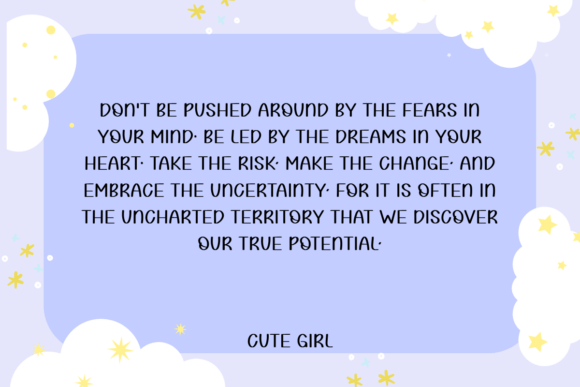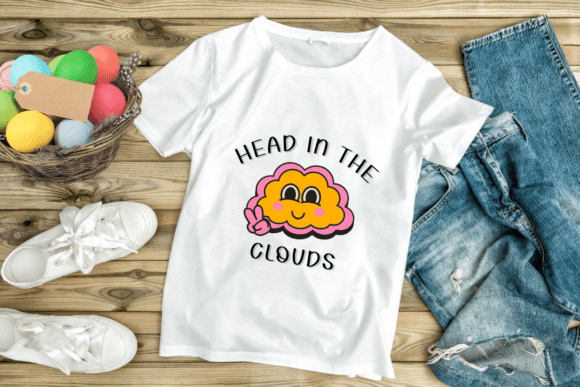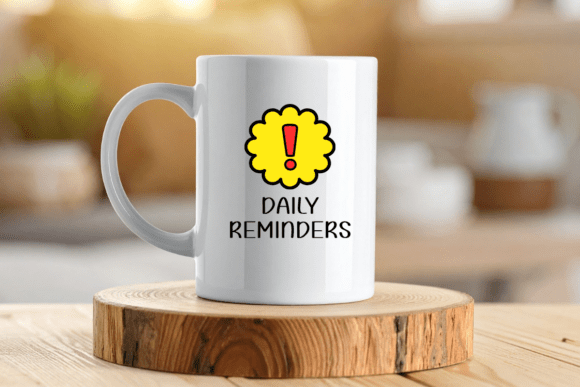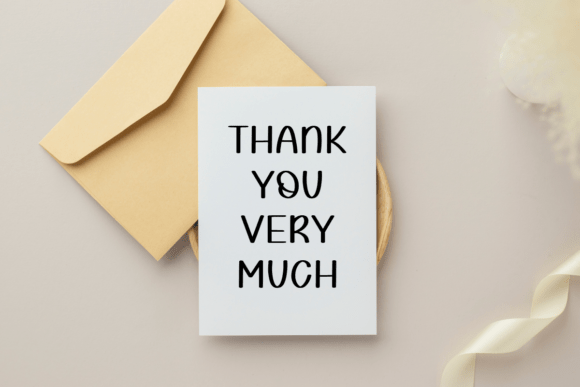
Cute Girl Font: Add a Playful Touch to Your Designs
Are you looking for a font that can add a cute and playful aesthetic to your designs? Look no further than the Cute Girl font. This cool handwriting font is perfect for crafters, designers, and DIY enthusiasts who want to create unique and eye-catching projects. With its natural vibes and adorable style, Cute Girl is sure to make your designs stand out.
What is Cute Girl Font?
Cute Girl is a handwriting font that is designed to bring a playful and cute look to your designs. It’s perfect for a variety of projects, including cricut, planner, mug, sticker, journal, invitation, greeting card, kdp, scrapbooking, crafting, tote bag, quotes, keychain, notes, and more. This font is versatile and can be used for both personal and commercial projects.
Features of Cute Girl Font
Cute Girl font has several features that make it a great addition to your creative toolbox. Some of its key features include:
- Cute Aesthetic: The font has a naturally cute and playful aesthetic that is perfect for creating adorable designs.
- Handwritten Style: The font has a handwritten style that gives it a personal and unique touch.
- Versatile: The font can be used for a variety of projects, from crafting to commercial designs.
- Easy to Read: The font is easy to read, making it perfect for quotes, notes, and other text-based designs.
Uses of Cute Girl Font
Cute Girl font can be used for a wide range of projects, including:
- Cricut: Use the font to create custom vinyl decals, iron-on designs, and paper crafts.
- Planner: Add a personal touch to your planner with cute and colorful headers and titles.
- Mug: Create custom mugs with cute quotes and designs.
- Sticker: Use the font to create custom stickers for your journal, laptop, or water bottle.
- Journal: Add a personal touch to your journal with cute headers and titles.
- Invitation: Create custom invitations for parties, weddings, and other special events.
- Greeting Card: Use the font to create custom greeting cards for birthdays, holidays, and other special occasions.
- KDP: Use the font to create custom books, journals, and planners for Kindle Direct Publishing.
- Scrapbooking: Add a personal touch to your scrapbook pages with cute and colorful titles and headers.
- Crafting: Use the font to create custom signs, banners, and other craft projects.
Why Choose Cute Girl Font?
There are many reasons why you should choose Cute Girl font for your next project. Here are a few:
- Unique Style: The font has a unique and adorable style that will make your designs stand out.
- Versatile: The font can be used for a wide range of projects, from crafting to commercial designs.
- Cute Aesthetic: The font has a naturally cute and playful aesthetic that is perfect for creating adorable designs.
In conclusion, Cute Girl font is a great addition to any designer’s or crafter’s toolbox. With its cute aesthetic, handwritten style, and versatility, it’s perfect for a wide range of projects. Whether you’re working on a cricut project, creating custom mugs, or designing greeting cards, Cute Girl font is sure to make your designs stand out. So why wait? Download Cute Girl font today and add a playful touch to your designs.
- Q: What is Cute Girl font?
A: Cute Girl font is a cool handwriting font with a cute aesthetic and natural vibes.
- Q: What can I use Cute Girl font for?
A: You can use Cute Girl font for a wide range of projects, including cricut, planner, mug, sticker, journal, invitation, greeting card, kdp, scrapbooking, crafting, tote bag, quotes, keychain, notes, and more.
- Q: Is Cute Girl font easy to read?
A: Yes, Cute Girl font is easy to read, making it perfect for quotes, notes, and other text-based designs.